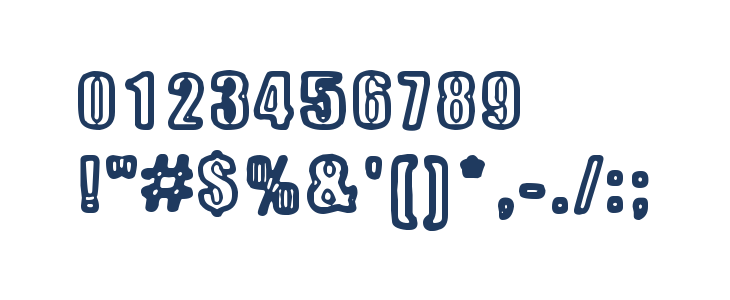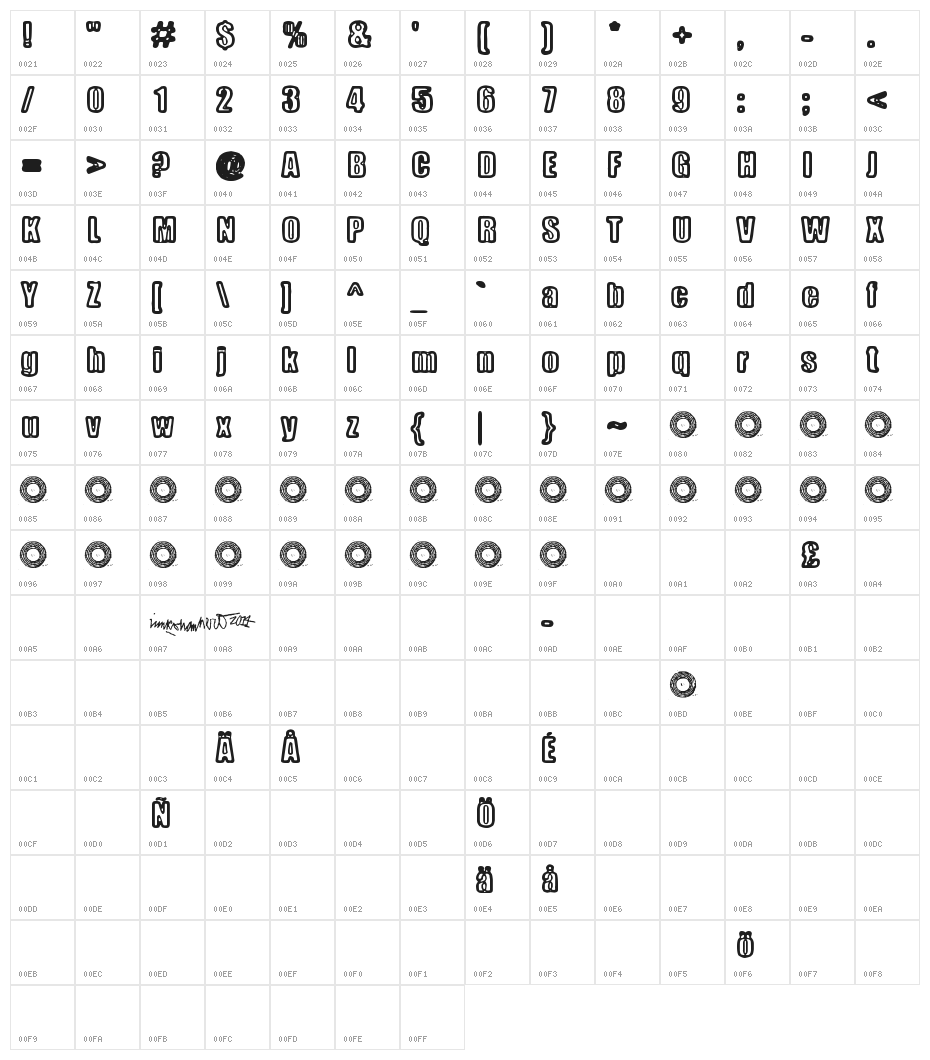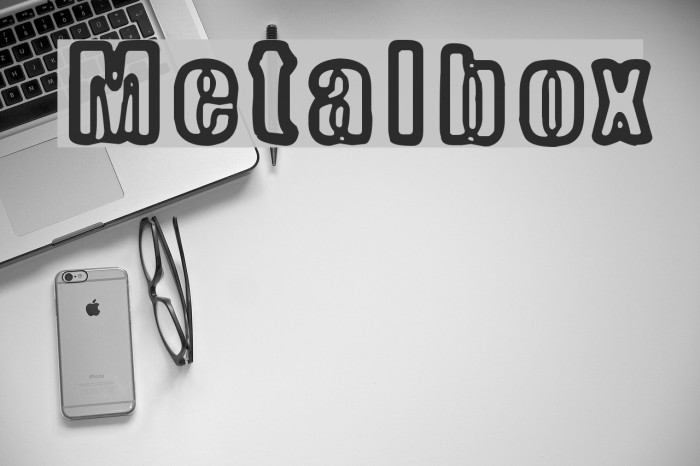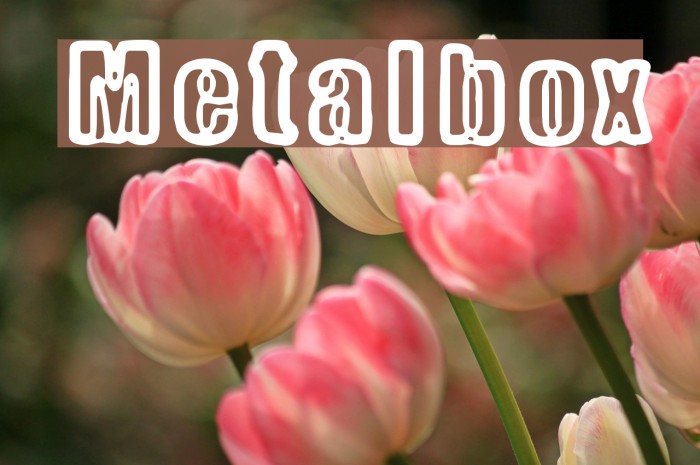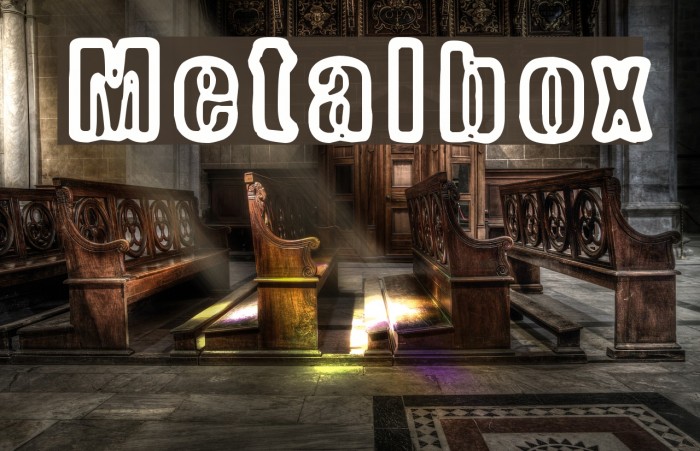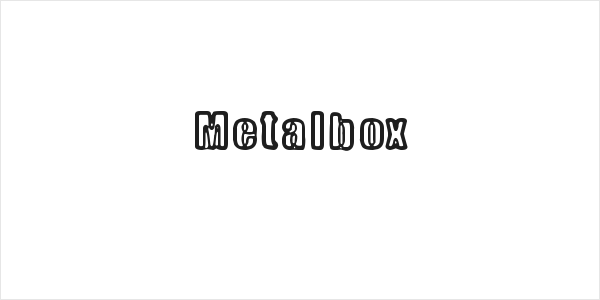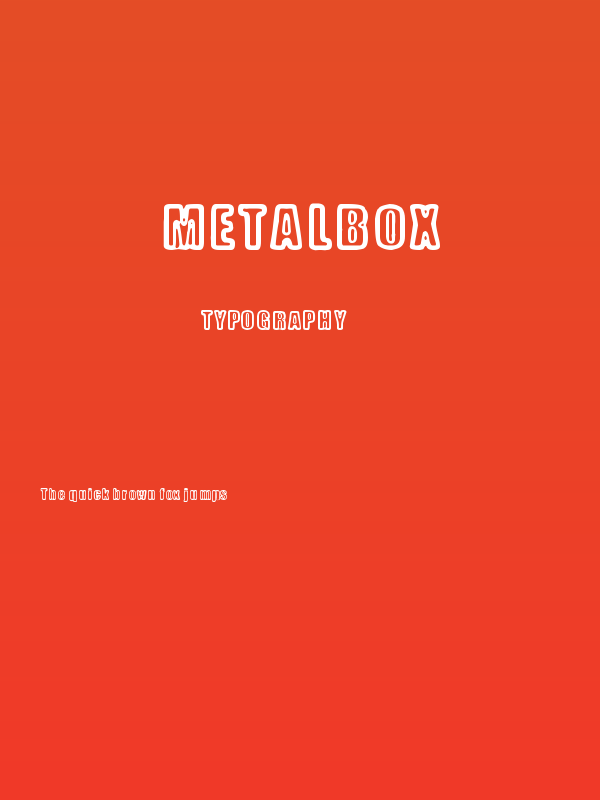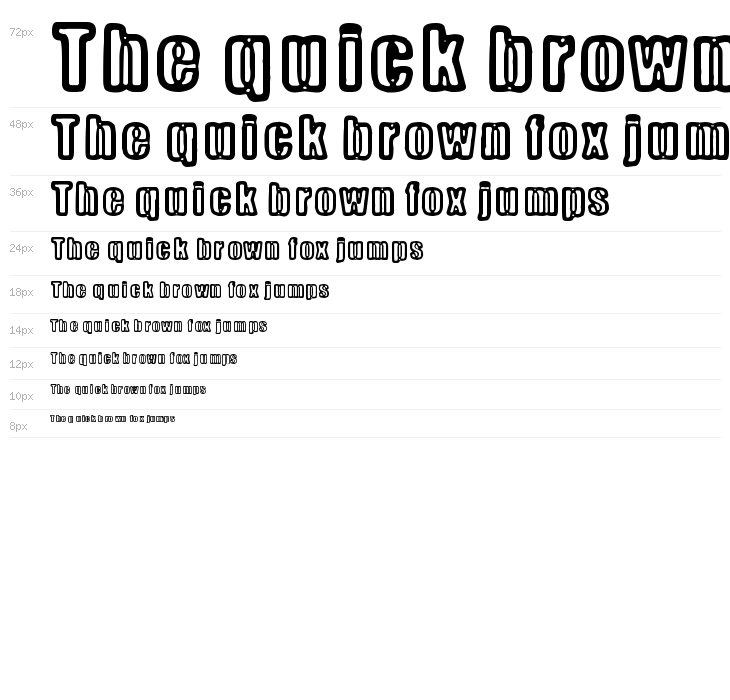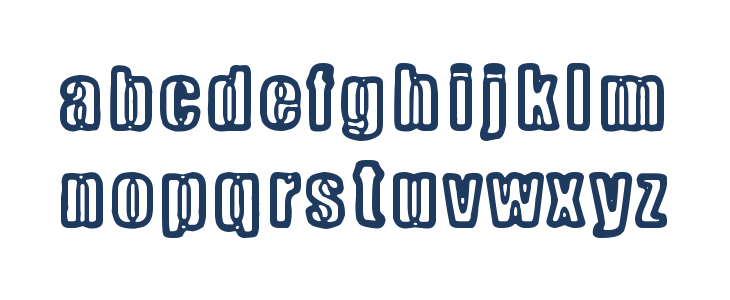
Metalbox Font
Metalbox Description
This font features a bold, outlined style with a playful and eye-catching appearance. Each character is defined by thick, consistent strokes that create a hollow effect, making it stand out prominently. The uppercase and lowercase letters maintain a uniform width, contributing to a cohesive look. The numerals and special characters follow the same design principles, ensuring a harmonious overall presentation. This font's unique style is both modern and slightly retro, making it versatile for various creative applications.
| Proposed Projects | Ideal for posters, logos, headlines, and any design requiring a bold statement. |